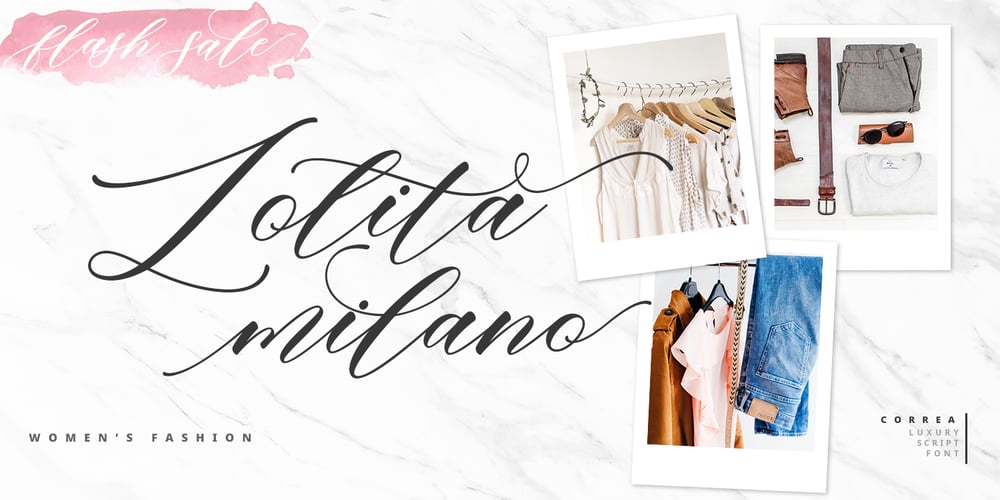
Correa Script Font Family was designed by Juni Fadil Putra and published by FadeLine Studio. Correa Script contains 1 styles and family package options. Introducing Correa Script! This is a modern font script. This font is slanted, luxurious, and elegant. Contains 456 glyphs! Use it freely as you see fit. Please try it out and I hope you enjoy it! With a style like this, this font will be suitable in use for lettering logos, branding projects, homeware designs, product packaging, mugs, quotes, posters, shopping bags, t-shirts, book covers, name card, invitation cards, greeting cards, and all your other lovely projects.